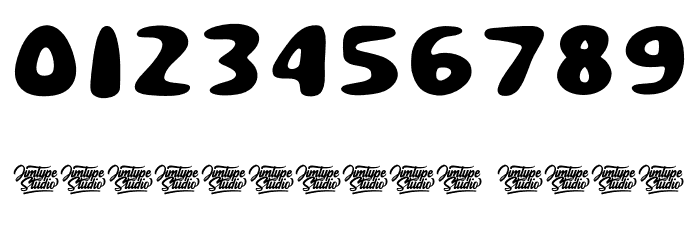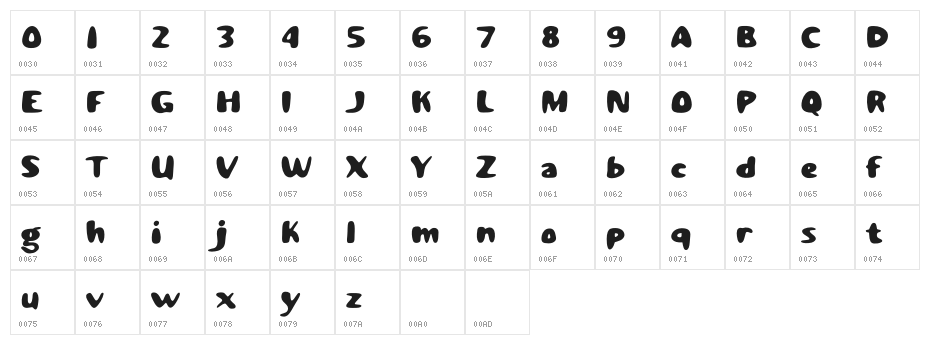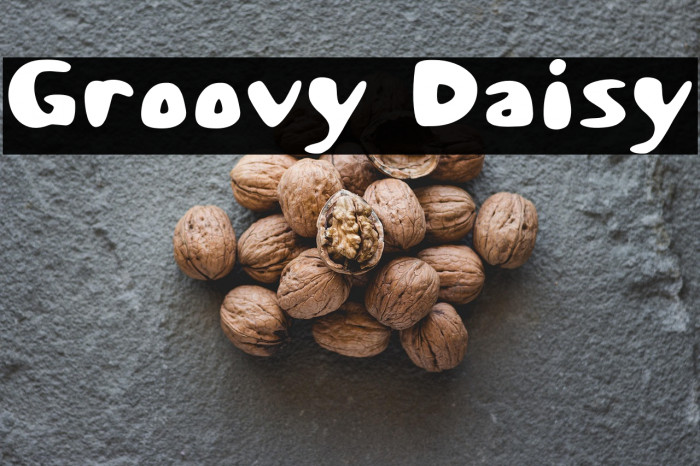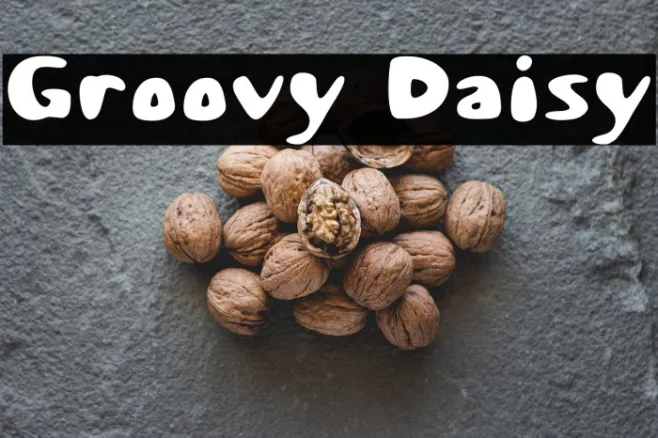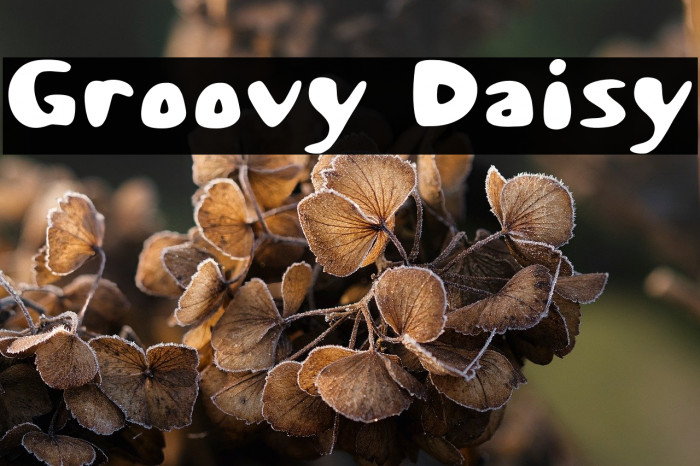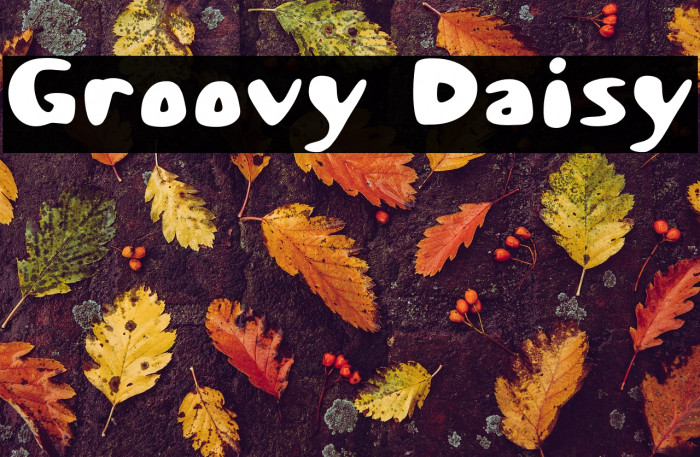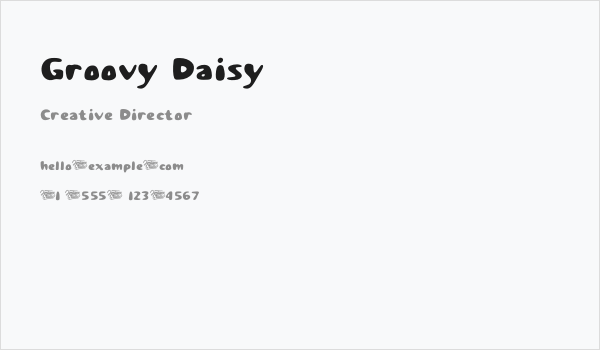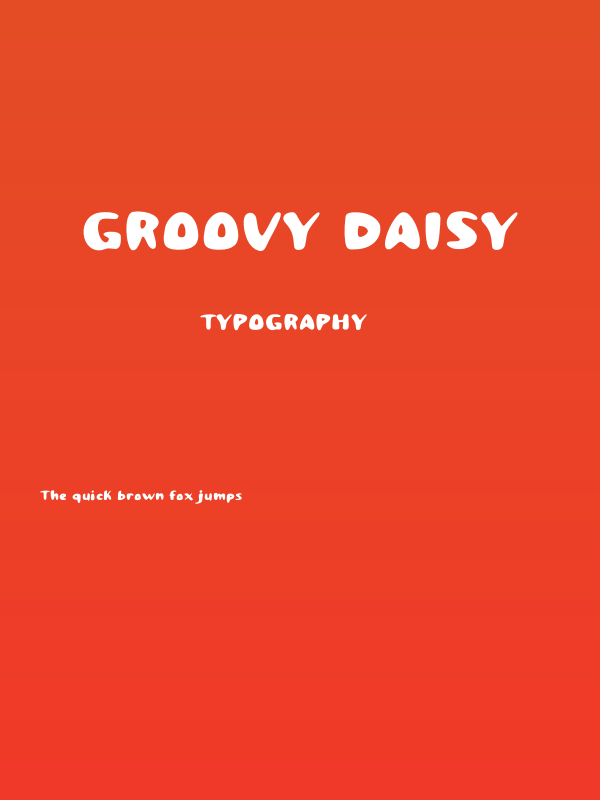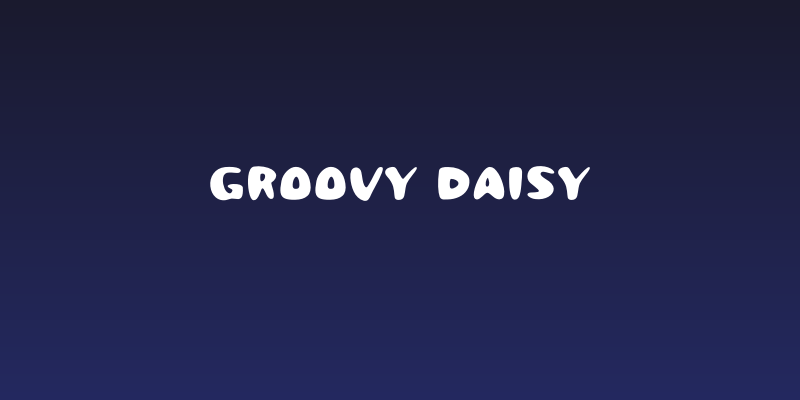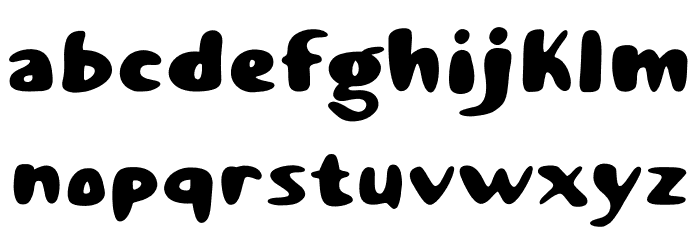
Groovy Daisy Font
Groovy Daisy Description
This playful and bold font features rounded, bubbly characters that exude a sense of fun and whimsy. The letters are thick and have a uniform stroke width, giving them a strong presence on the page. The overall design is reminiscent of retro or vintage styles, with a modern twist that makes it suitable for contemporary projects. The characters are well-spaced, ensuring readability while maintaining a cohesive look. This font is perfect for projects that require a touch of personality and flair, such as posters, invitations, or branding materials.
| Overall Style | Retro, Modern |
| Proposed Projects | Ideal for posters, invitations, branding, and any project needing a playful, retro touch. |